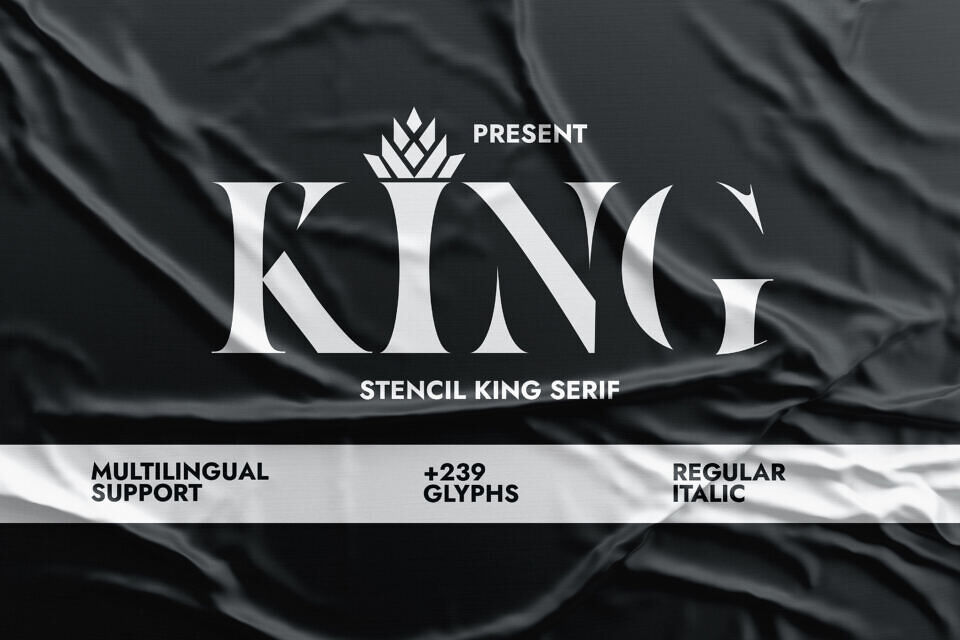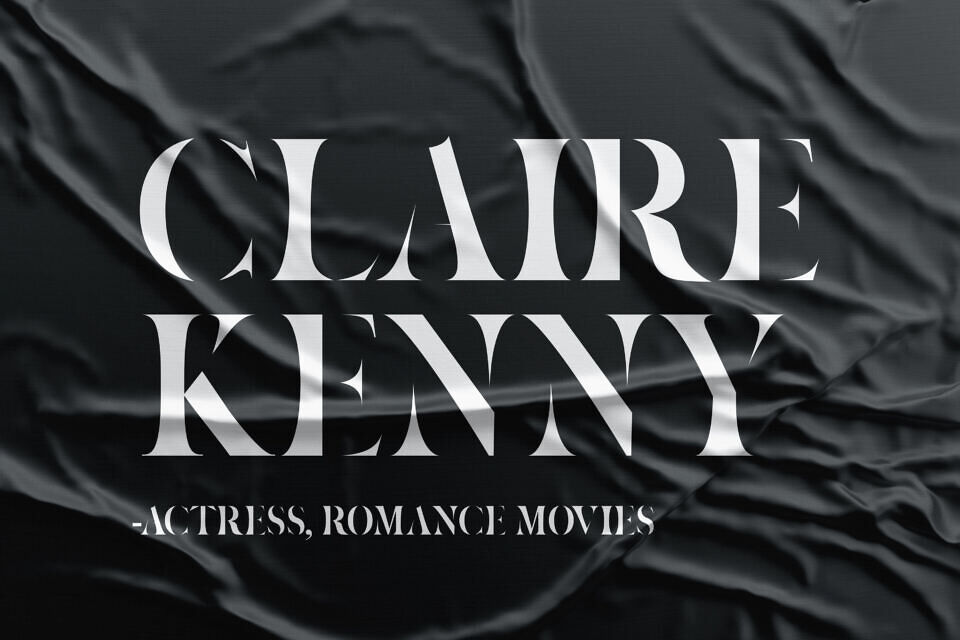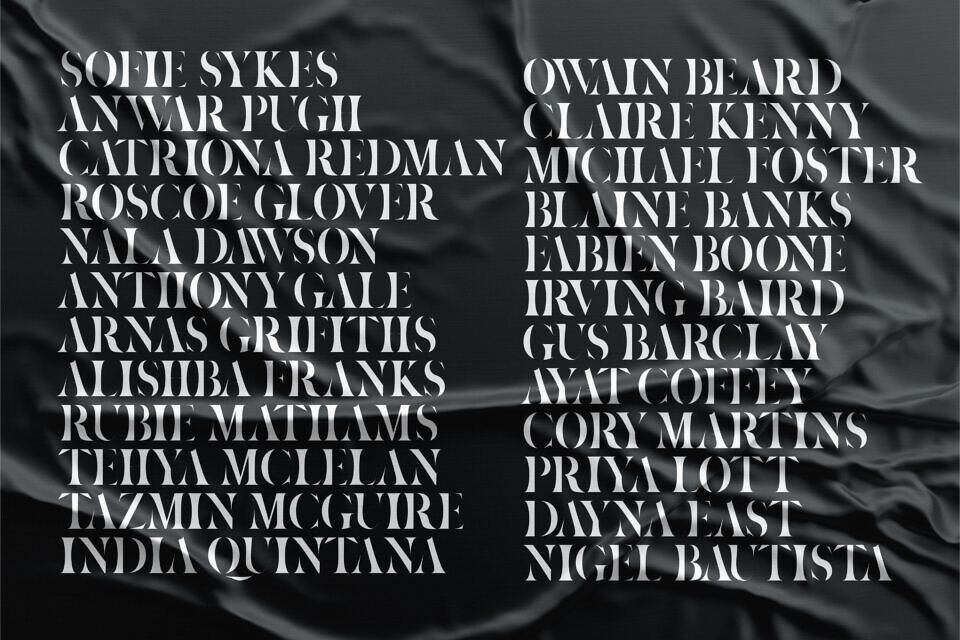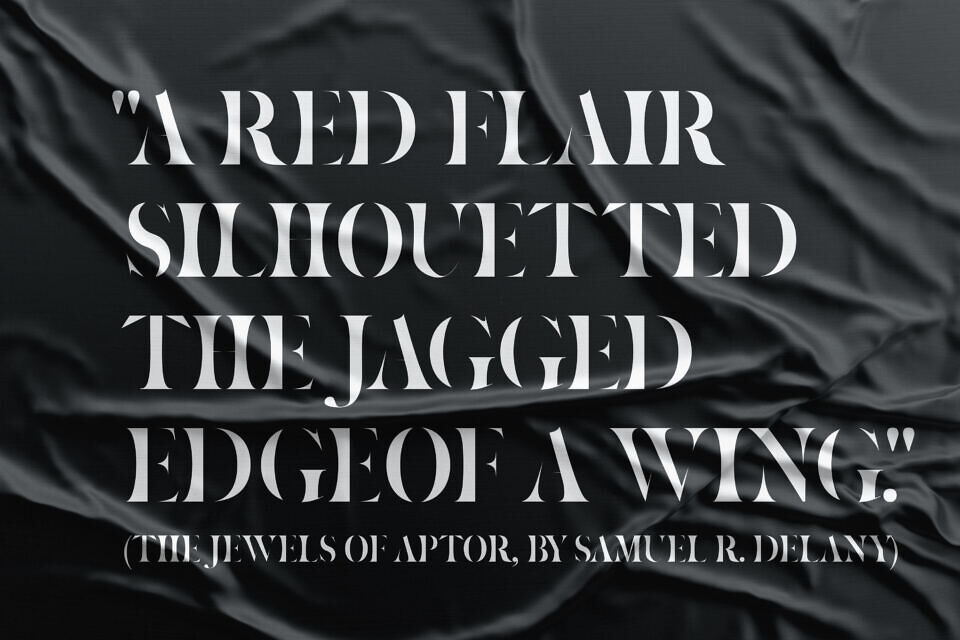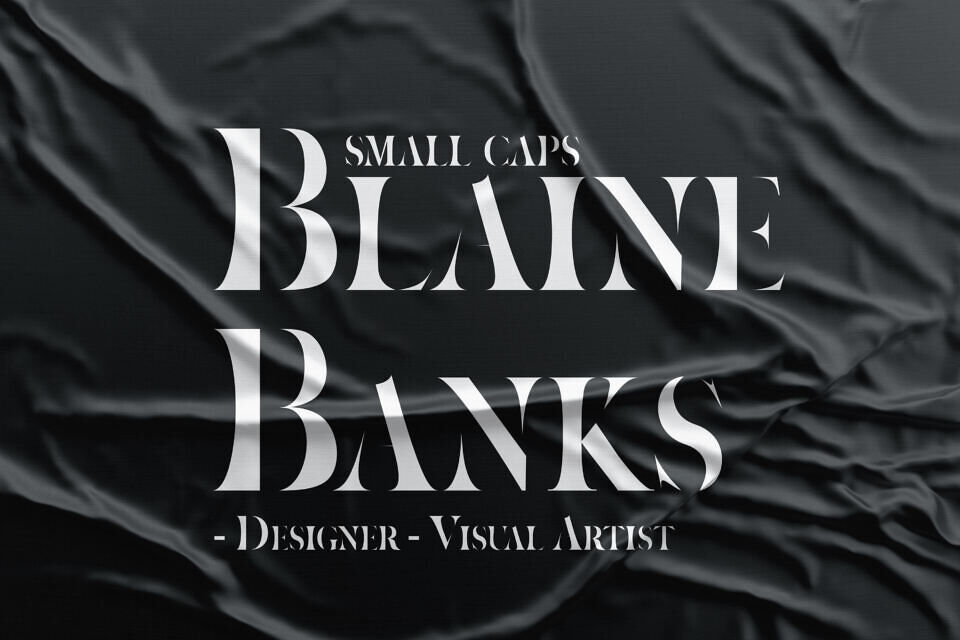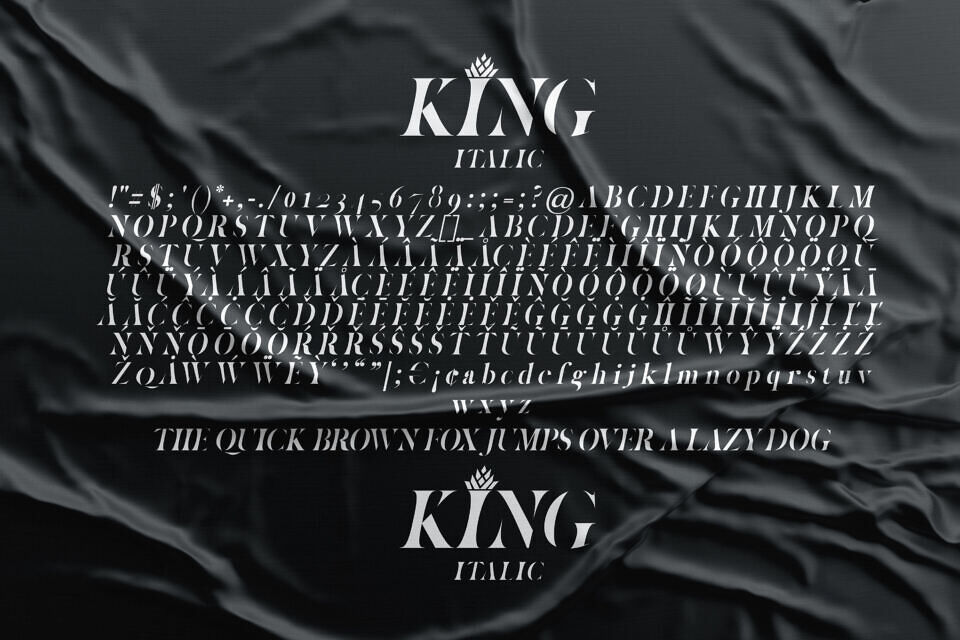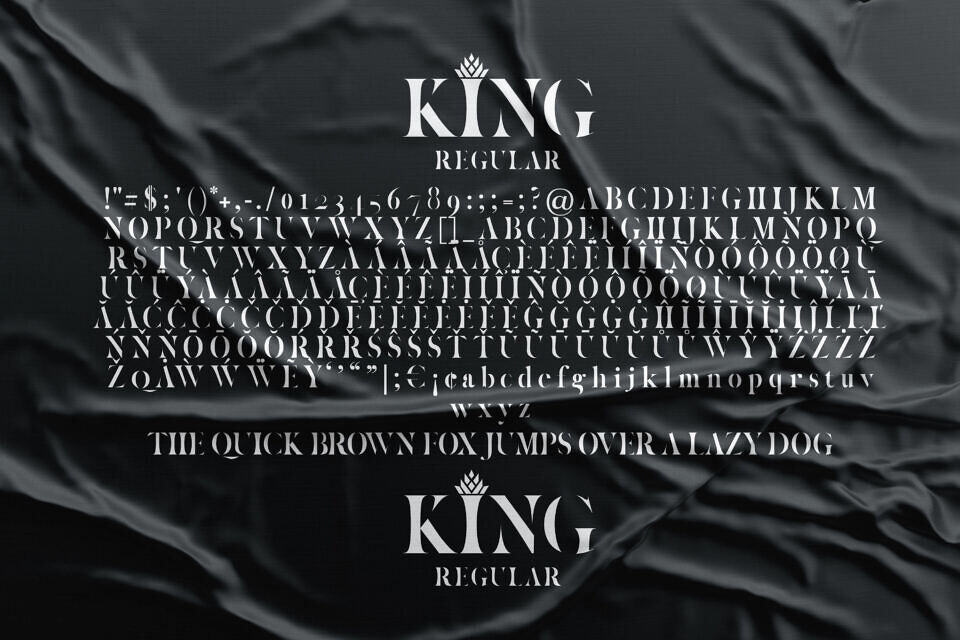
King Font
King Font is a modern stencil serif typeface that blends minimalism, elegance, and luxury. Designed for high-end creativity, it is ideal for logos, packaging, cosmetics, perfumes, fashion, jewelry, posters, and other premium projects.
Its refined letterforms bring sophistication and exclusivity to every design. Easy to use and highly versatile, King saves time while ensuring professional results. Whether for branding, editorial layouts, or luxury goods, this typeface delivers a polished and timeless look, making it the perfect choice for designers seeking elegance and impact.